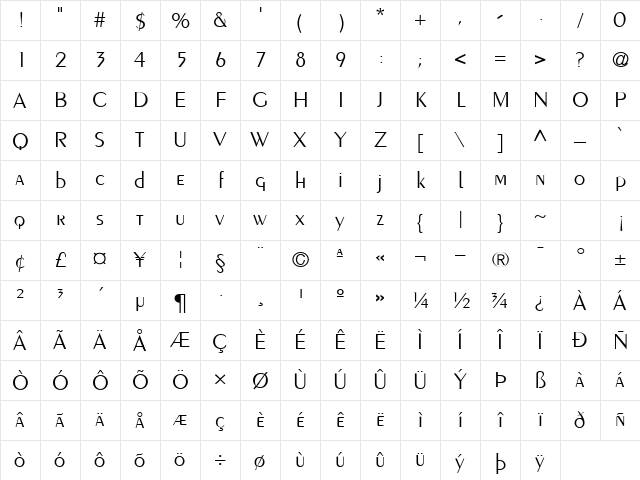
PT Eclectic Normal
Design Context for PT Eclectic
PT Eclectic is a composed and adaptable typeface that performs quietly and consistently across a wide range of design contexts.